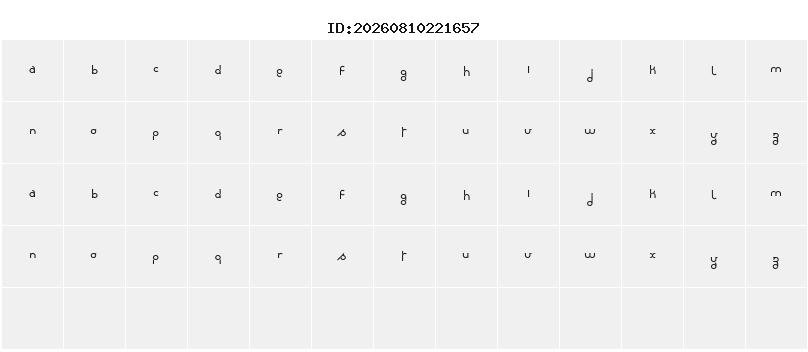
• Font Name: rondie
• Manufacturer: Dker
About rondie.ttf
rondie.ttf is a modern, elegant sans-serif font designed for ultimate readability and visual harmony. Perfect for branding, headlines, web design, and print materials.